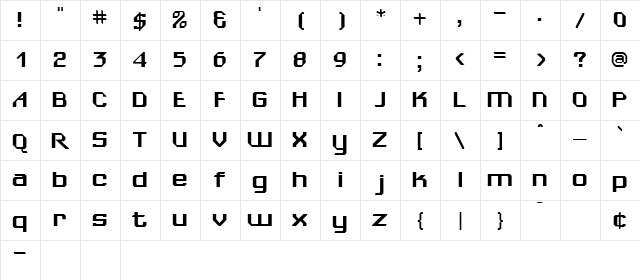
Sydney Regular Font Preview
Sydney Regular
Design Context for Sydney Typeface
Sydney is a composed and adaptable typeface that performs quietly and consistently across a wide range of design contexts.
Pro Tip: Pair Sydney with a font of contrasting weight or personality to build a more expressive typographic hierarchy.